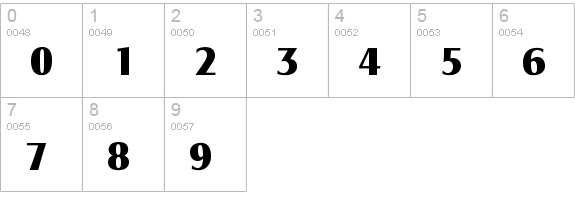
Signata Bold is a strong, high-contrast variant in the Signata typeface family \xE2\x80\x94 well suited to headlines, attention-grabbing titles, and strong calls-to-action.
Signata Bold font is a striking and eye-catching typeface that is sure to make a bold statement. With its strong and confident strokes, this font exudes a sense of power and authority. Its clean and modern design is perfect for a variety of projects, from logos and branding to headlines and posters. The Signata Bold font is characterized by its thick and well-defined letterforms, which give it a strong and commanding presence. Each letter is meticulously crafted to ensure legibility and readability, even at small sizes. This attention to detail makes it a versatile font that can be used in both print and digital media. One of the best things about Signata Bold font is that it is free! That's right, you can freely download this amazing font at FontsMarket.com. Whether you're a professional designer or someone who just loves typography, having access to high-quality fonts like Signata Bold can greatly enhance your creative projects. With its bold and impactful style, the Signata Bold font is perfect for making a statement. Whether you're designing a logo for a cutting-edge tech company or creating a striking poster for an event, this font will help you stand out from the crowd. Its bold and confident look will grab the attention of viewers and leave a lasting impression. Don't miss out on the opportunity to download Signata Bold font for free at FontsMarket.com. With its powerful and captivating design, this font is a must-have for any designer or creative individual. So why wait? Go ahead and bring your projects to life with the bold and free Signata Bold font.